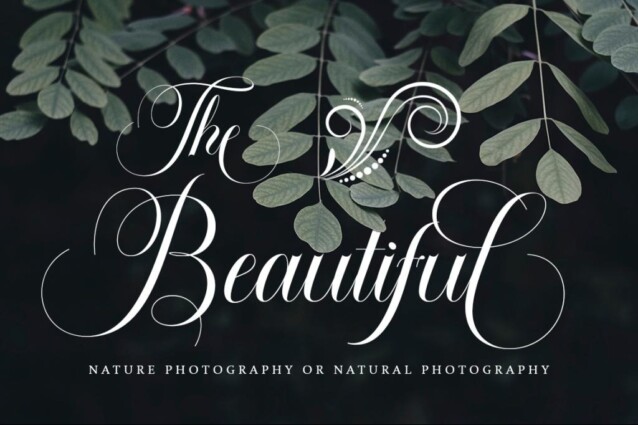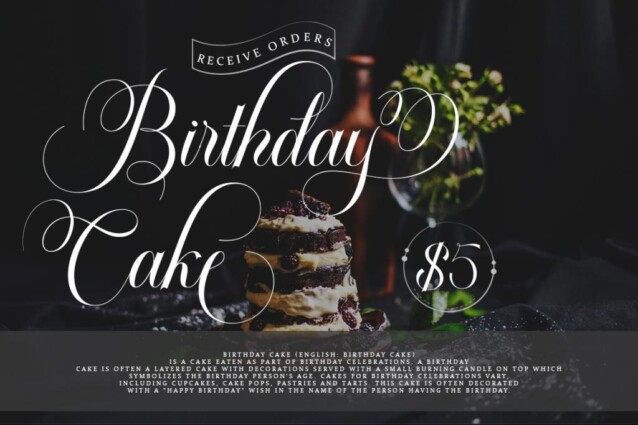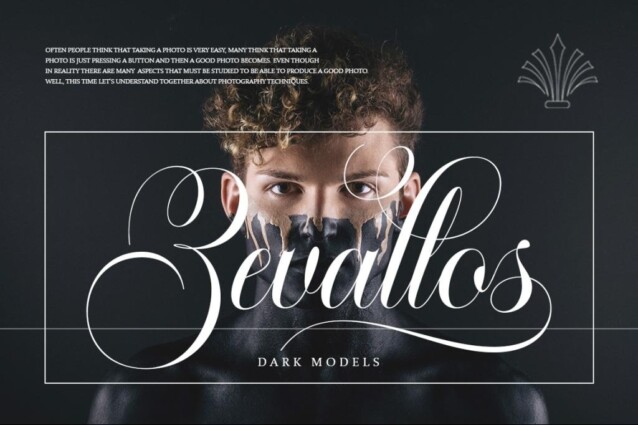
Blacglona Font is a calligraphy typeface that comes with very beautiful changing characters, a type of classic decorative copper script with a modern touch, designed with high detail to present an elegant style. Fall in love with its incredibly versatile style and use it to create gorgeous wedding invitations, beautiful stationary art, eye-catching social media posts, and much more!